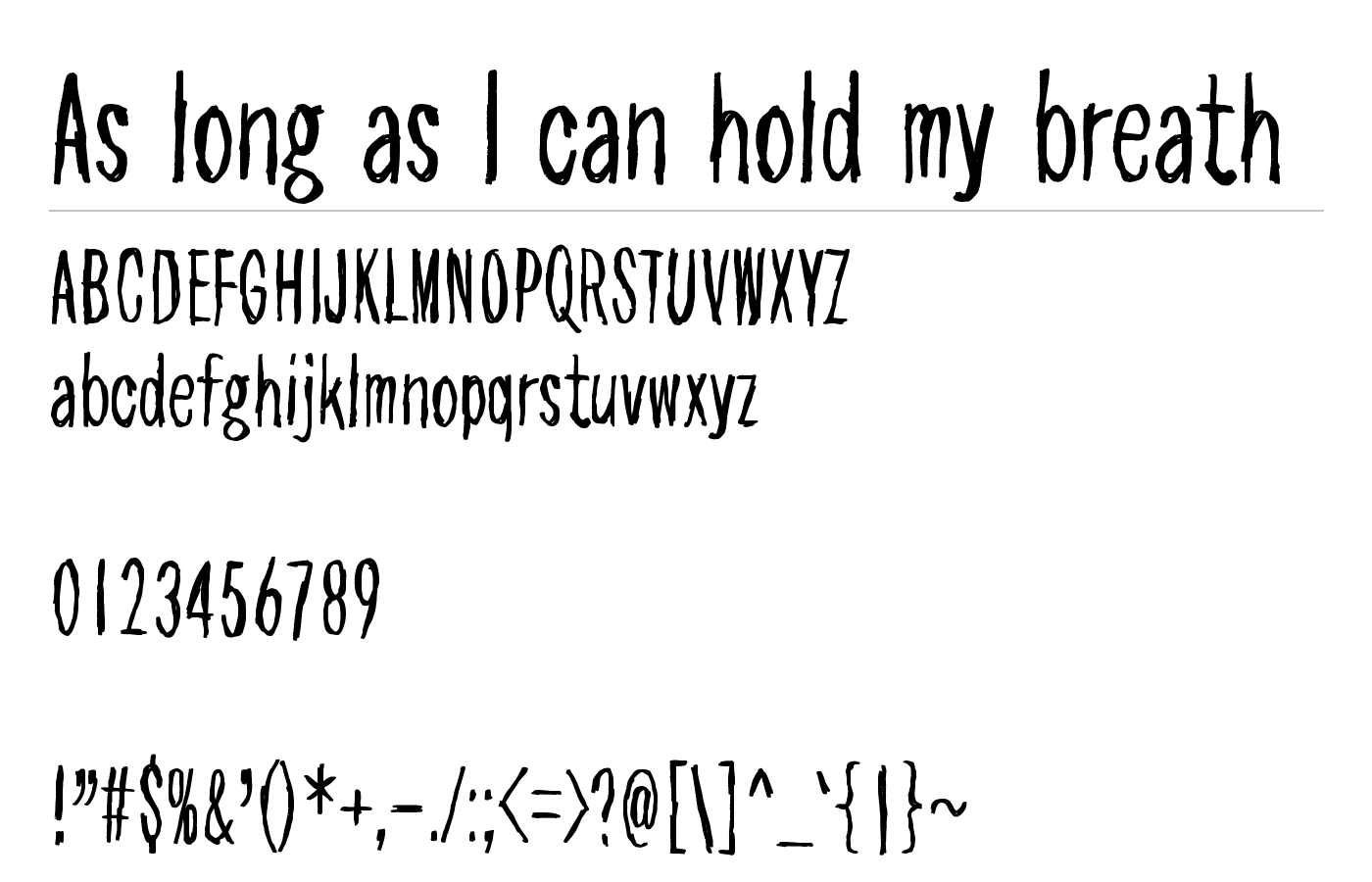
"As long as I can hold my breath" is a narrow, tall sans serif font with a hand-drawn, slightly irregular style that gives it a casual and whimsical feeling. Its thin strokes and uneven edges create a playful yet slightly eerie atmosphere, making it ideal for creative projects that want to convey personality and a touch of uniqueness. This font works well for headlines, posters, and artistic branding where an informal, quirky vibe is desired.
As long as I can hold my breath Font
About As long as I can hold my breath Font